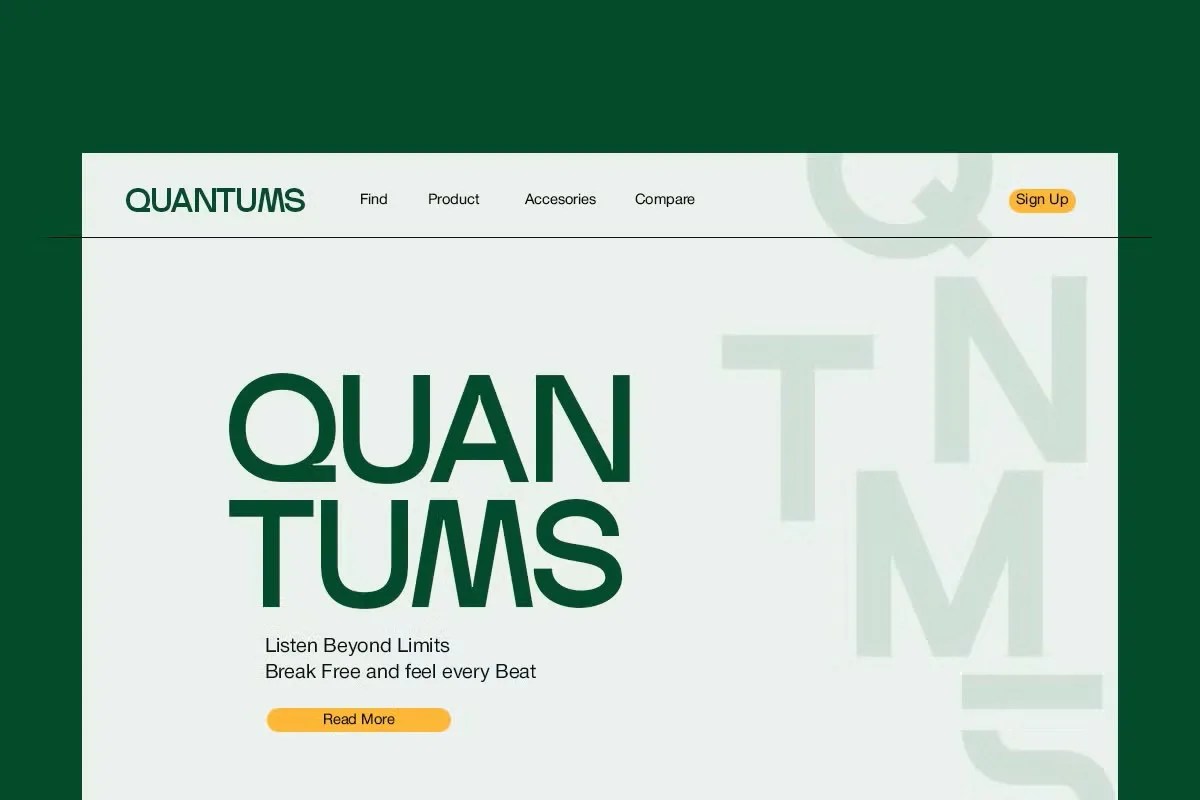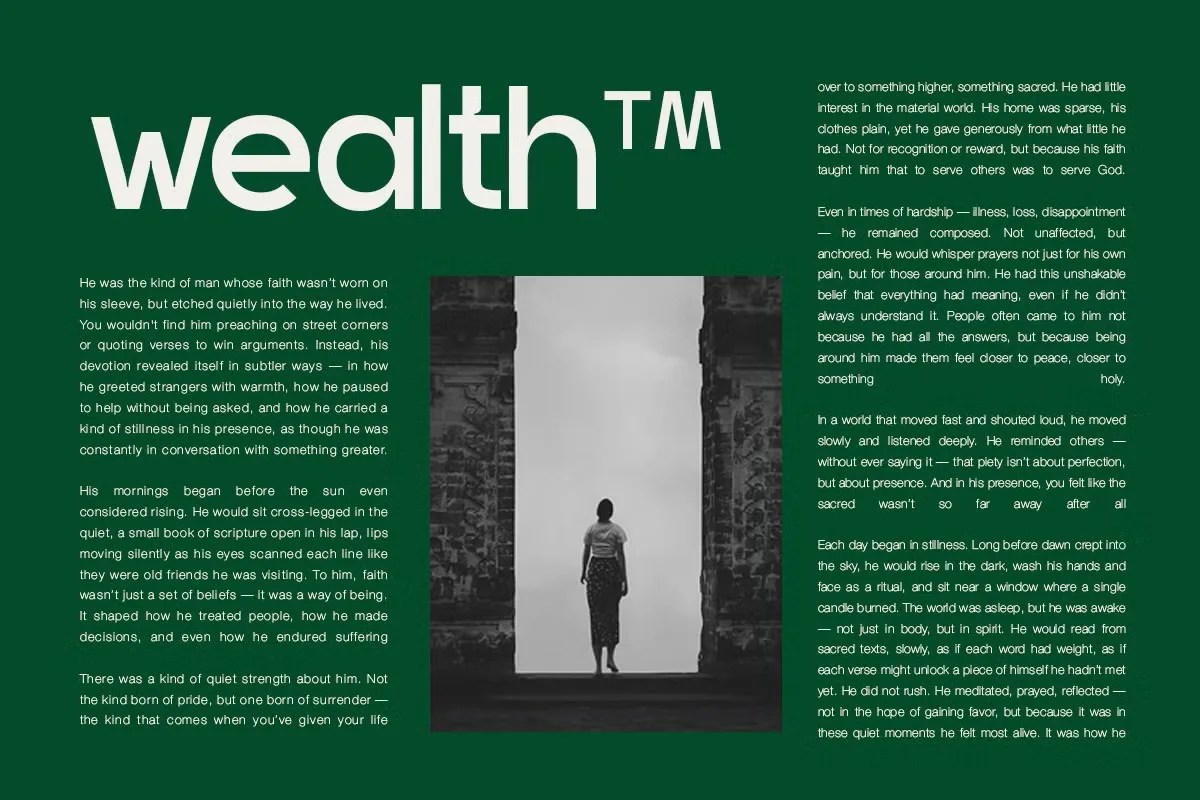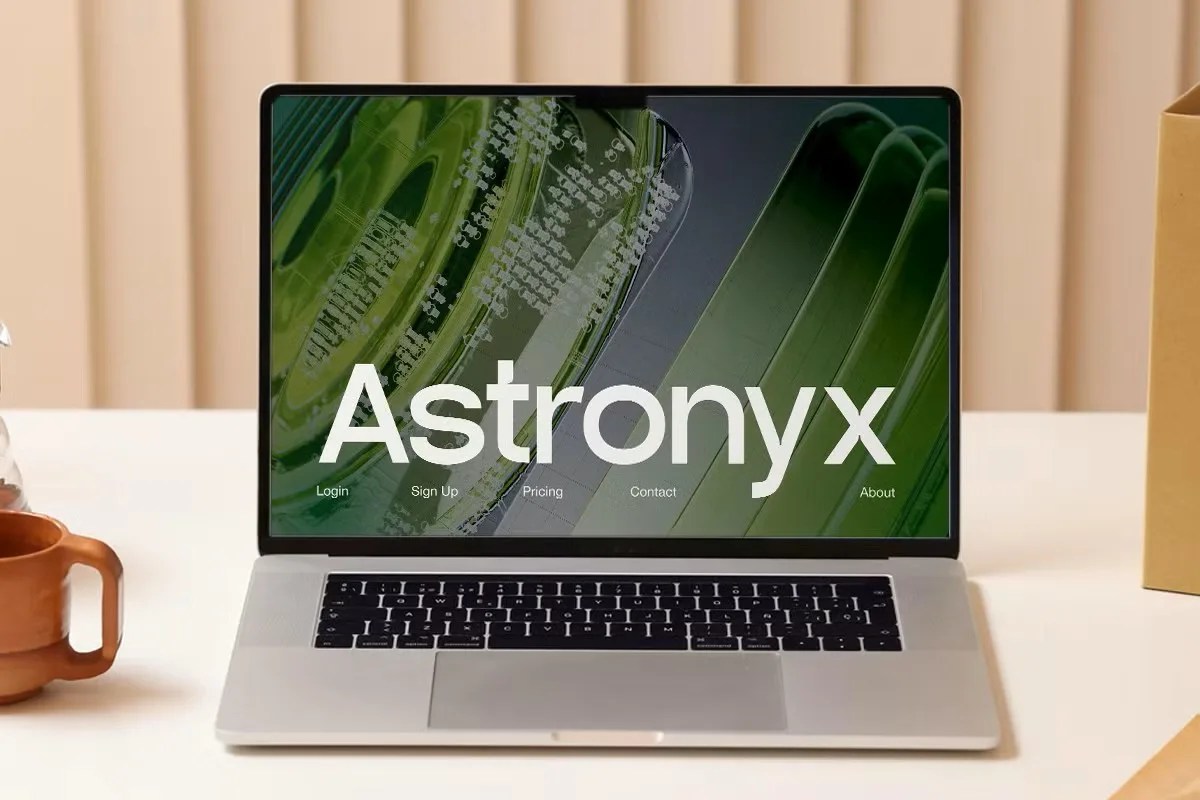
Quera Font by Pandeka Studio is a beautifully modern and versatile sans serif typeface designed to bring clarity and sophistication to your creative projects. With its clean lines and minimalist aesthetic, Quera is perfect for designers seeking a font that is both contemporary and highly legible.
Whether you’re crafting a bold headline, designing a sleek logo, developing a corporate identity, or creating engaging web content, Quera provides a solid foundation for impactful communication. Its balanced letterforms ensure readability across various sizes, making it an excellent choice for branding, posters, and UI design for your personal projects.
• Modern and clean sans serif style
• Contains numbers & essential punctuation
• Excellent for branding, headlines, and logos
• Highly readable and versatile